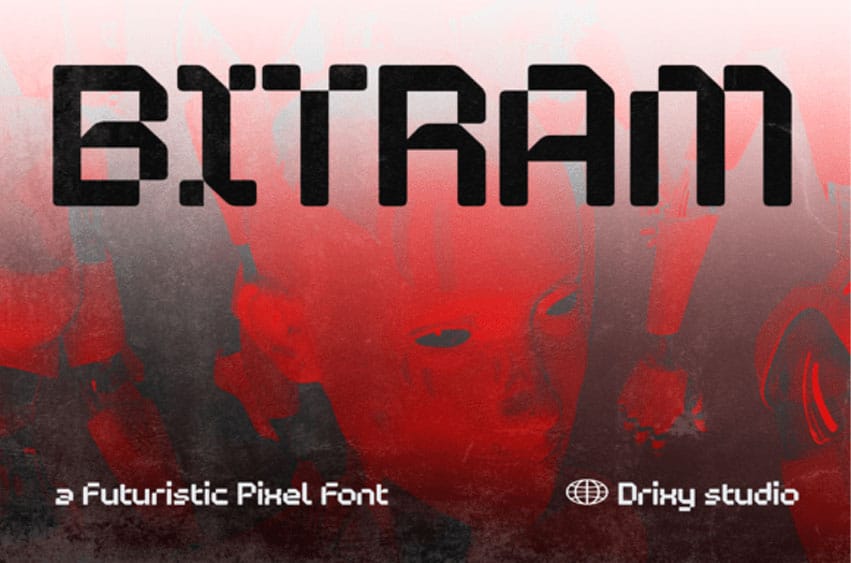
Bitram Font Plug your creative grid directly into a dystopian network with Bitram, an ultra-sleek futuristic pixel font. Engineered with solid structural proportions and immaculate visual tracking, Bitram slices through dark, heavily textured, and smoky cyberpunk illustrative backdrops with absolute authority.
It operates as an exceptional standalone centerpiece for retro-futuristic arcade game title screens, sci-fi movie posters, streaming channel overlays, alternative electronic music album sleeves, tech-startup branding identities, and edgy industrial streetwear apparel graphics.